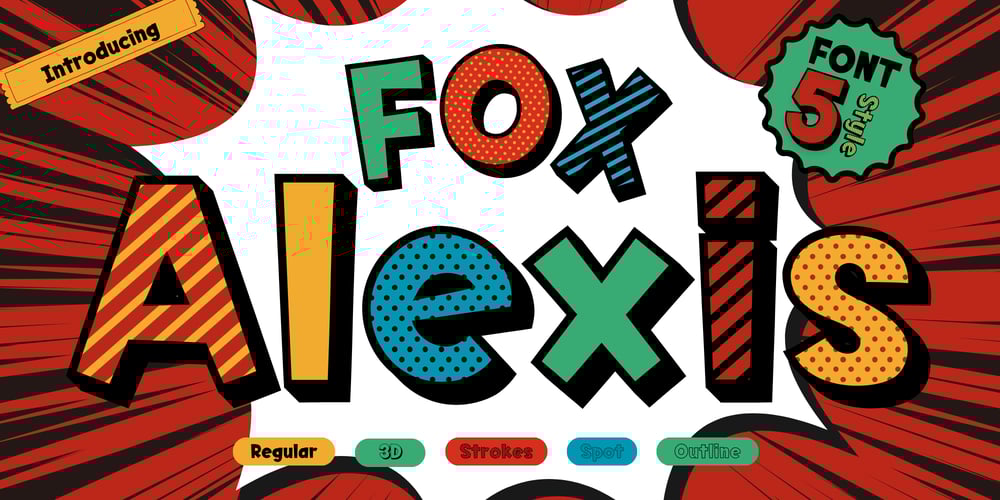
Fox Alexis Spot Font Family was designed by Rattana Rattanawan and published by Fox7. Fox Alexis Spot contains 5 styles and family package options. Fox Alexis is a 5 style font that cool and playful display font that adds a captivating and energetic touch to your designs. Its main feature is its vibrant and expressive design, allowing you to create attention-grabbing headlines, t-shirt typography, banners, product labels, and more. With its versatility and eye-catching presence.